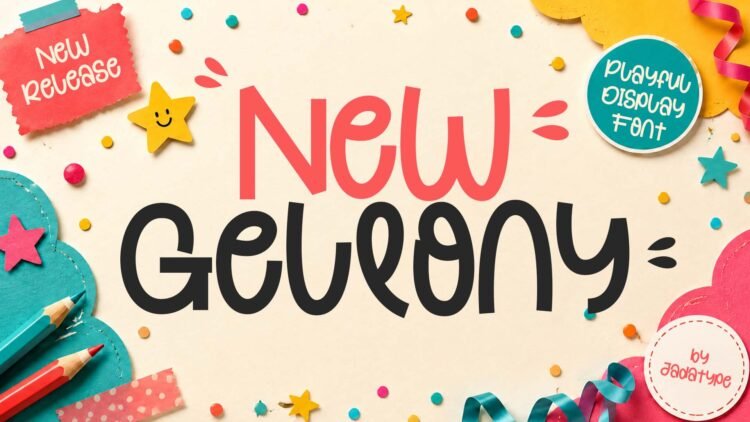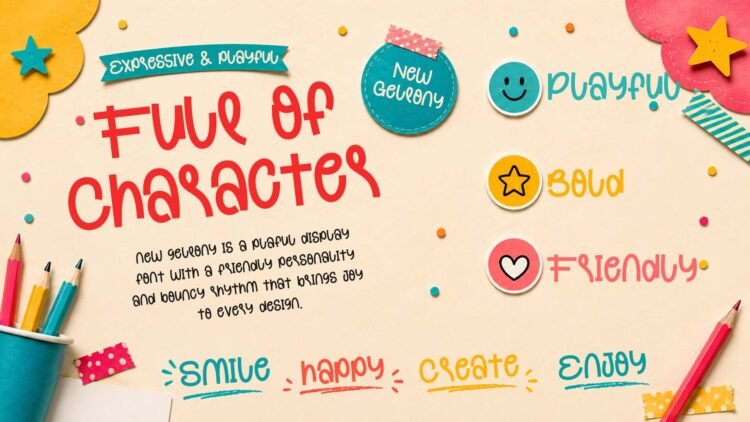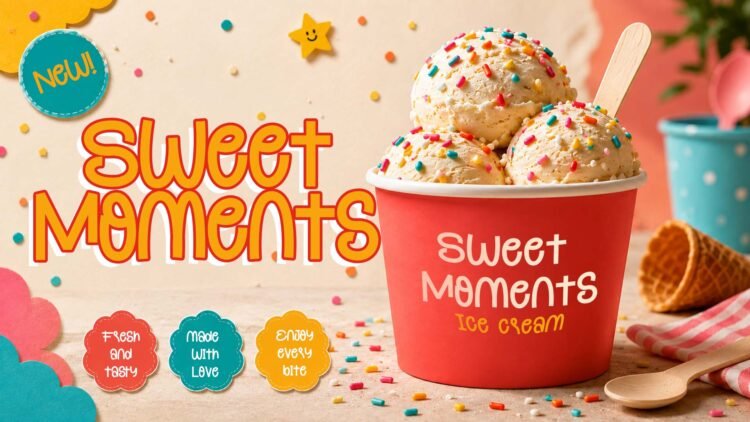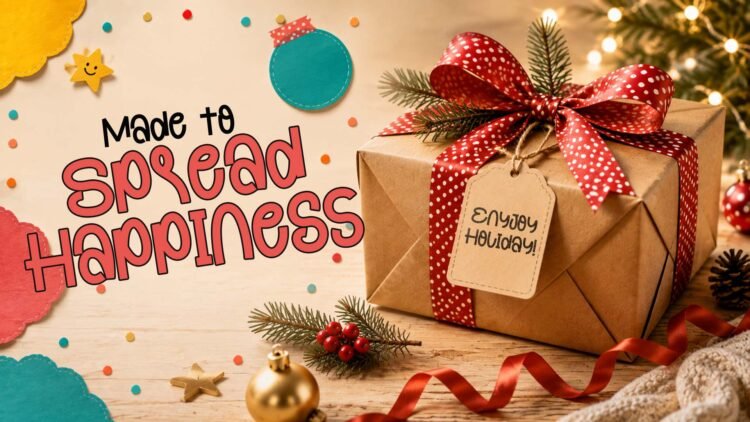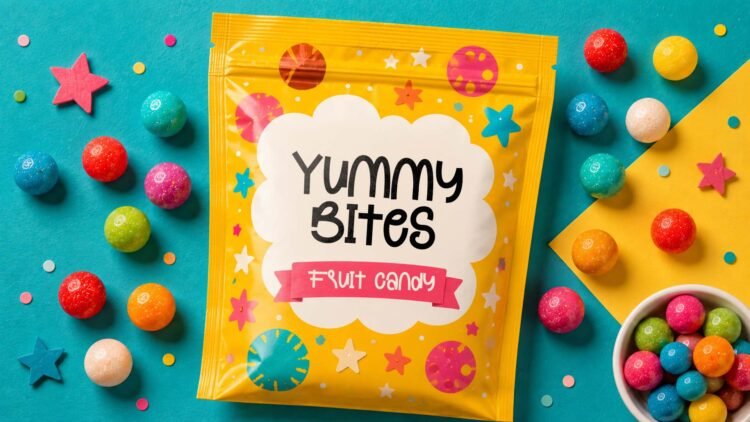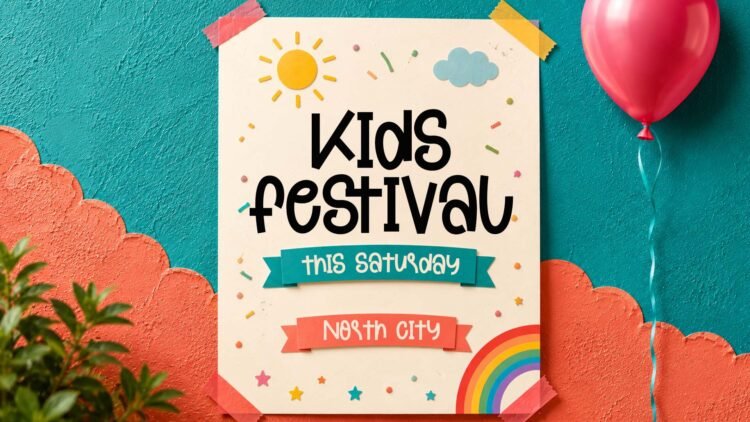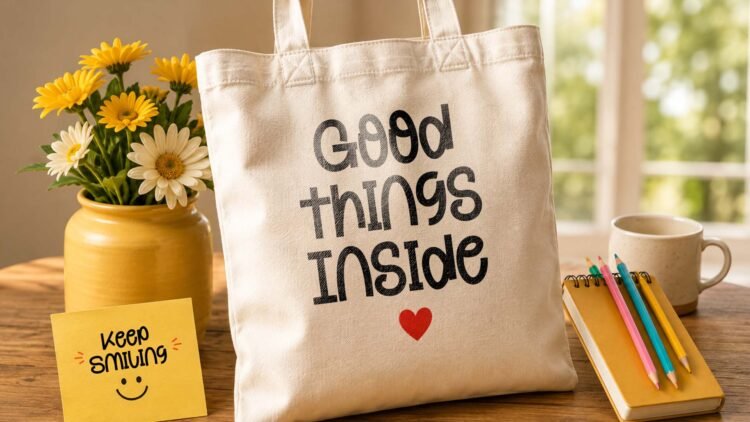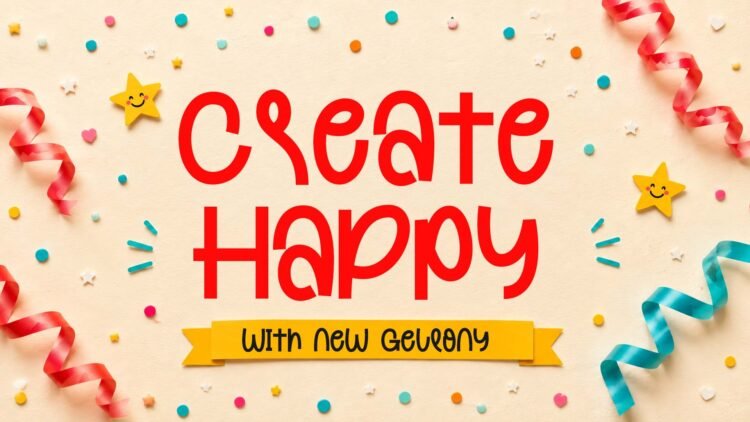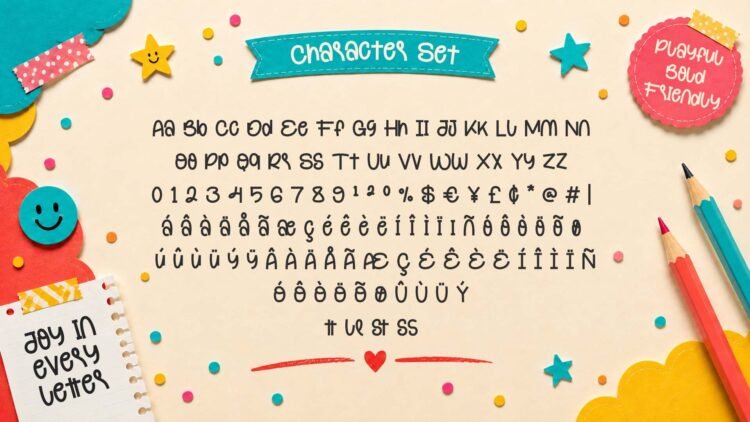
New Gellony is a fun and playful display font designed with a cheerful hand-drawn character. Its lively letterforms and whimsical shapes create a friendly, youthful personality, making it an excellent choice for designs that need a lighthearted and approachable visual style.
Perfect for children’s projects, playful branding, logo design, posters, invitations, social media graphics, packaging, educational materials, event graphics, and other cheerful display applications. Its expressive character works especially well for designs that call for a handmade, cute, and energetic typographic feel. The font includes standard English letters, numbers, punctuation, and accented characters for multilingual support.
• Standard uppercase and lowercase letters\
• Numbers and basic punctuation\
• Playful hand-drawn display letterforms\
• Several accented characters for multilingual support\